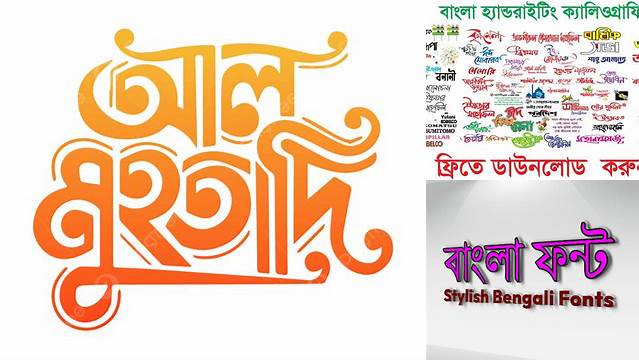
Free Bangla Calligraphy Fonts PDF Download
Hey guys! Are you looking to add some flair to your projects with beautiful Bangla calligraphy? You've come to the right place! In this article, we're diving deep into the world of Bangla calligraphy fonts, where to find them, and how to download them for free in PDF format. Get ready to explore a treasure trove of stunning fonts that will make your designs pop!
Bangla Calligraphy Font: An Overview
Bangla calligraphy fonts are a fantastic way to infuse your work with cultural richness and artistic expression. These fonts are designed to mimic the flowing, elegant strokes of traditional Bangla script, perfect for everything from invitations and posters to digital artwork and branding. Let's explore why Bangla calligraphy fonts are so popular and how you can use them to enhance your projects.
Bangla calligraphy is more than just writing; it's an art form. It captures the essence of the Bengali language with its graceful curves and intricate details. Whether you’re designing a wedding invitation, creating a poster for a cultural event, or working on a digital art project, using the right Bangla calligraphy font can make a world of difference. The beauty of these fonts lies in their ability to blend tradition with modernity, offering a unique and sophisticated touch to any design.
The versatility of Bangla calligraphy fonts is another reason for their widespread use. They can be used in a variety of contexts, from formal documents to casual designs. The key is to choose the font that best suits the project. A bold, dramatic font might be perfect for a poster, while a more delicate and refined font could be ideal for a wedding invitation. Understanding the nuances of each font and how it conveys a particular mood or message is crucial for effective design.
Moreover, using Bangla calligraphy fonts shows a deep appreciation for the Bengali culture and language. It’s a way to connect with the rich heritage and artistic traditions of Bengal. This is especially important for projects that aim to celebrate cultural events or promote Bengali literature and art. By incorporating these fonts, designers can add an authentic and meaningful touch to their work.
Why Use Bangla Calligraphy Fonts?
Why should you even bother with Bangla calligraphy fonts? Well, for starters, they add a unique touch of elegance and tradition to your designs. Imagine crafting a beautiful invitation or designing a striking poster – a well-chosen Bangla calligraphy font can instantly elevate the visual appeal. These fonts bring a sense of authenticity and cultural richness that standard fonts simply can't match.
Bangla calligraphy fonts are not just about aesthetics; they are also about cultural expression. They represent the artistic heritage of the Bengali-speaking regions and can be a powerful tool for connecting with that culture. Whether you’re creating content for a Bengali audience or simply want to add a touch of global flair to your designs, these fonts can help you achieve your goals. They offer a unique way to communicate and connect with your audience on a deeper level.
The versatility of Bangla calligraphy fonts is another significant advantage. They can be used in a wide range of projects, from traditional to contemporary designs. Think about using them for branding materials, website headers, social media graphics, or even in print media like books and magazines. The possibilities are endless, and the right font can make your project stand out from the crowd.
Another compelling reason to use these fonts is their ability to convey a specific mood or tone. A flowing, ornate font might be perfect for a romantic or celebratory design, while a bolder, more angular font could be ideal for a modern or edgy project. The key is to experiment with different fonts and see how they affect the overall feel of your design. By carefully selecting the right font, you can ensure that your message is communicated effectively and resonates with your audience.
Finding Free Bangla Calligraphy Fonts
Okay, so you're sold on the idea of using Bangla calligraphy fonts. But where do you find them, especially for free? Don't worry, I've got you covered! There are several websites and resources that offer a wide variety of Bangla calligraphy fonts for free download. We'll explore some of the best options so you can start browsing and downloading your favorites.
Finding free Bangla calligraphy fonts can be a bit of a treasure hunt, but it’s definitely worth the effort. There are numerous online platforms and communities that offer these fonts, often created by talented designers who want to share their work. However, it’s important to be cautious and ensure that the fonts you download are genuinely free for commercial use and don’t come with any hidden licenses or restrictions.
One of the best places to start your search is Google Fonts. While it may not have as extensive a collection of Bangla calligraphy fonts as some other specialized sites, it does offer a selection of high-quality, open-source fonts that are free to use in any project. The advantage of Google Fonts is that you can easily embed the fonts on your website or use them in your design software without worrying about licensing issues. This makes it a reliable and convenient option for many designers.